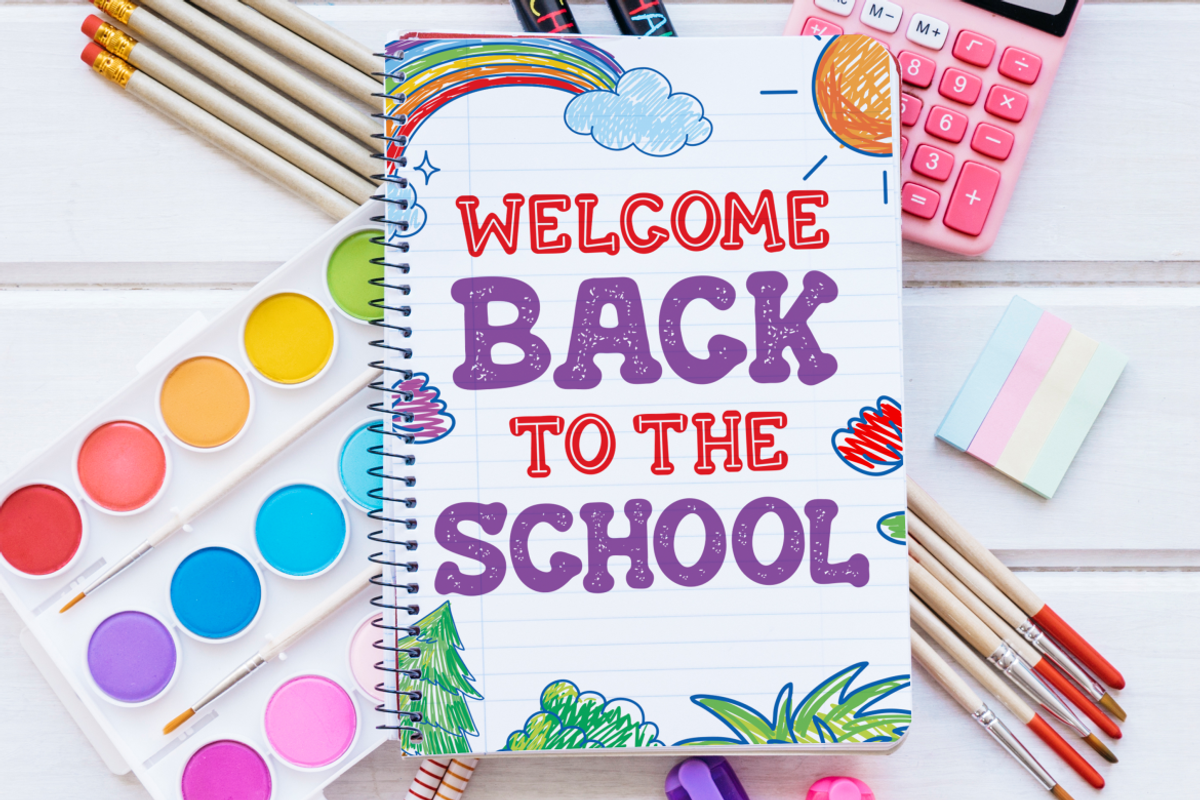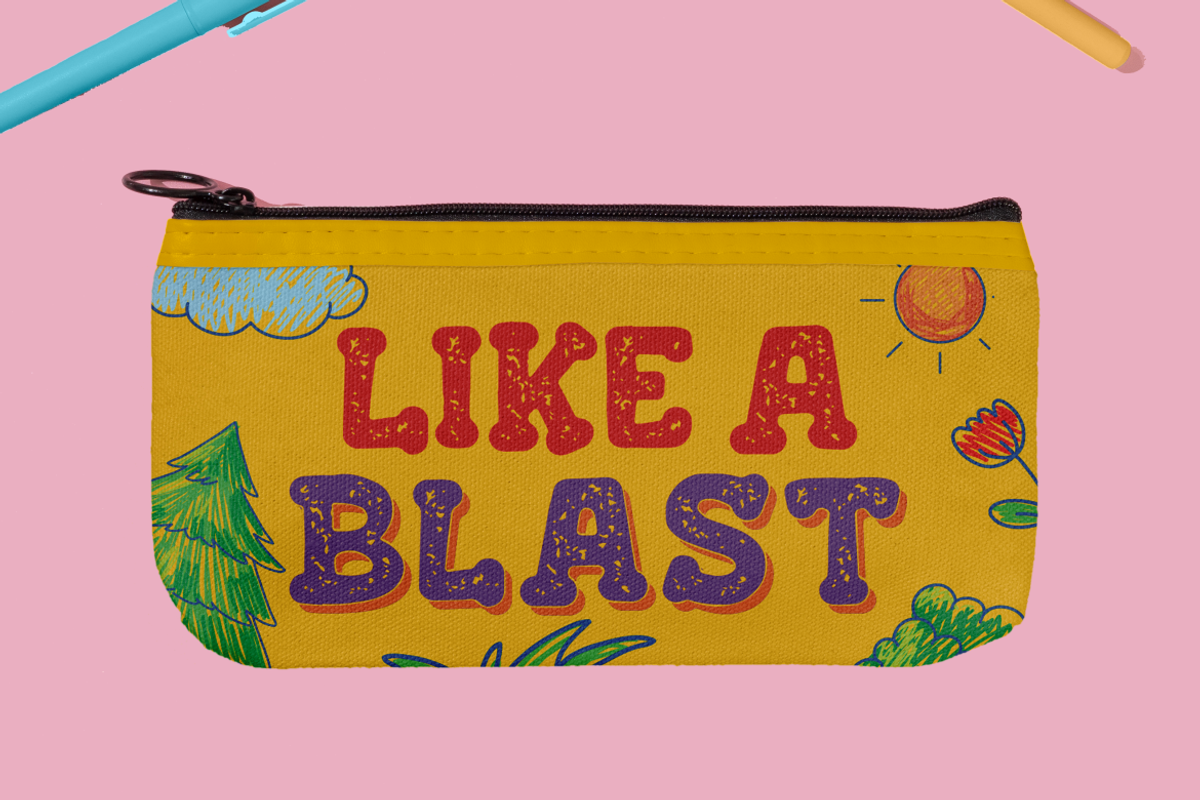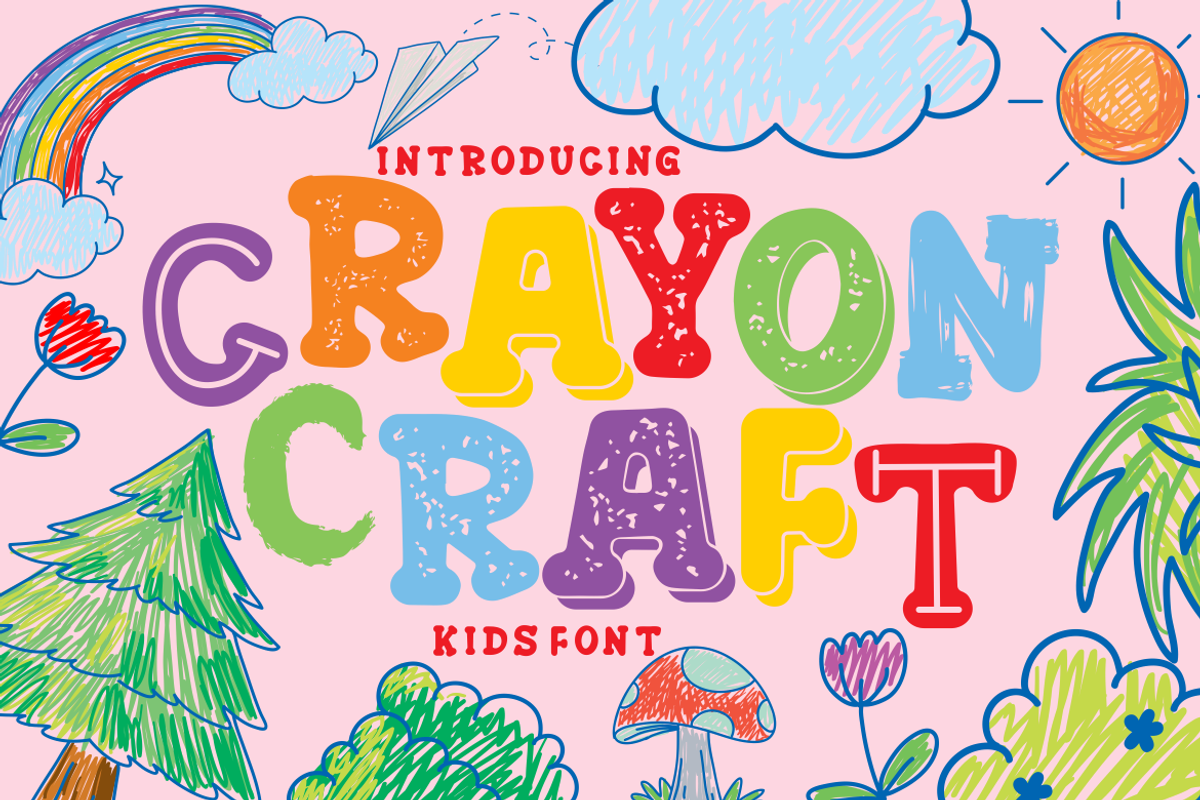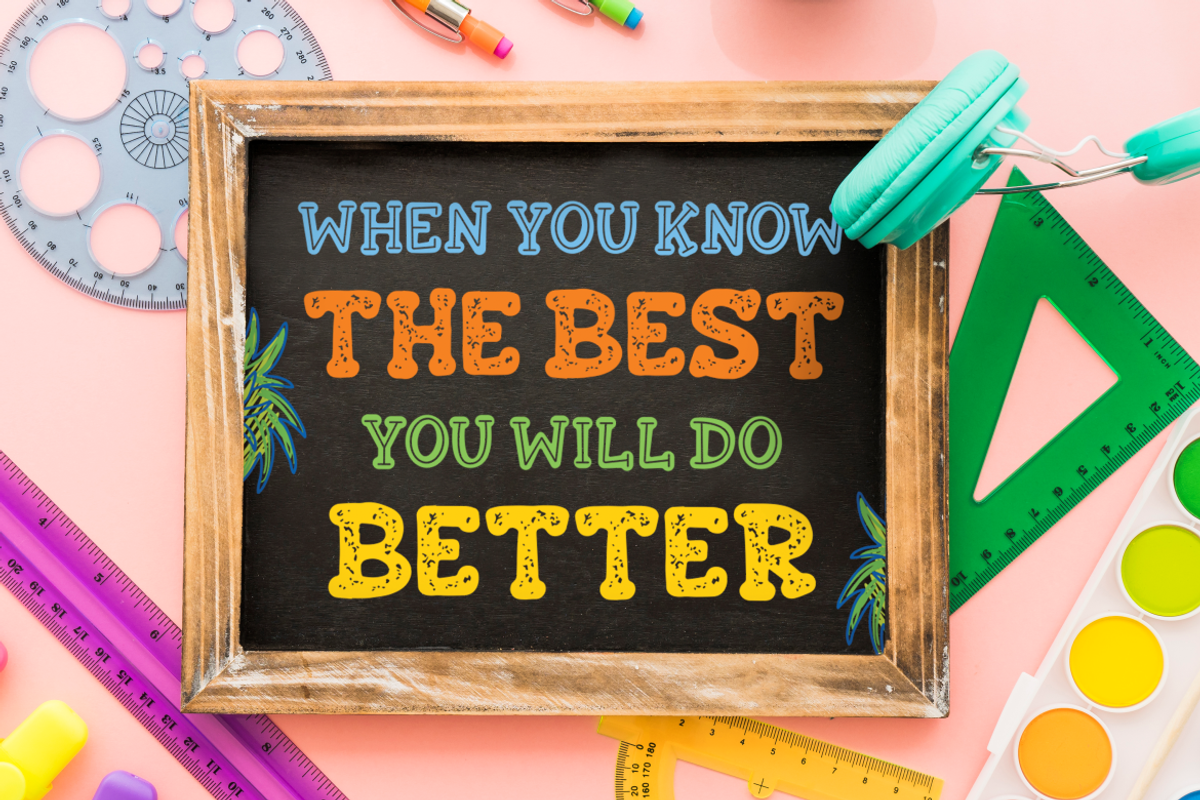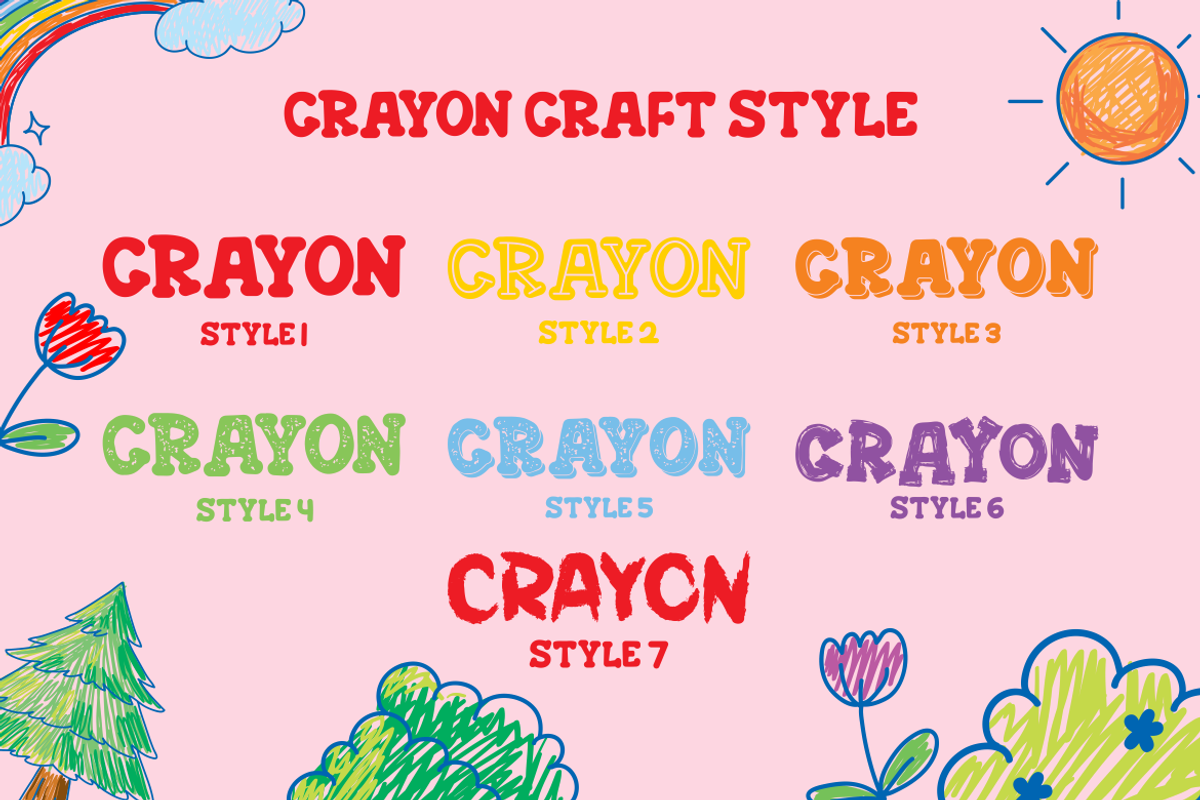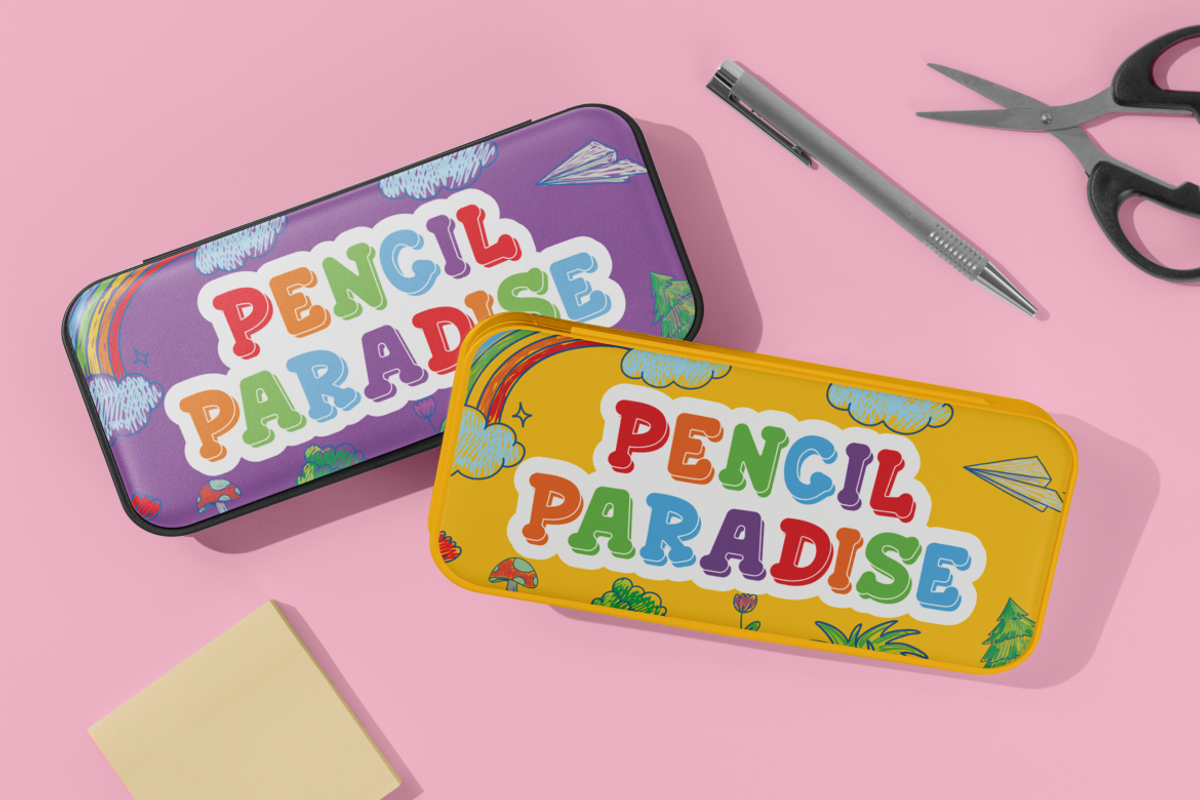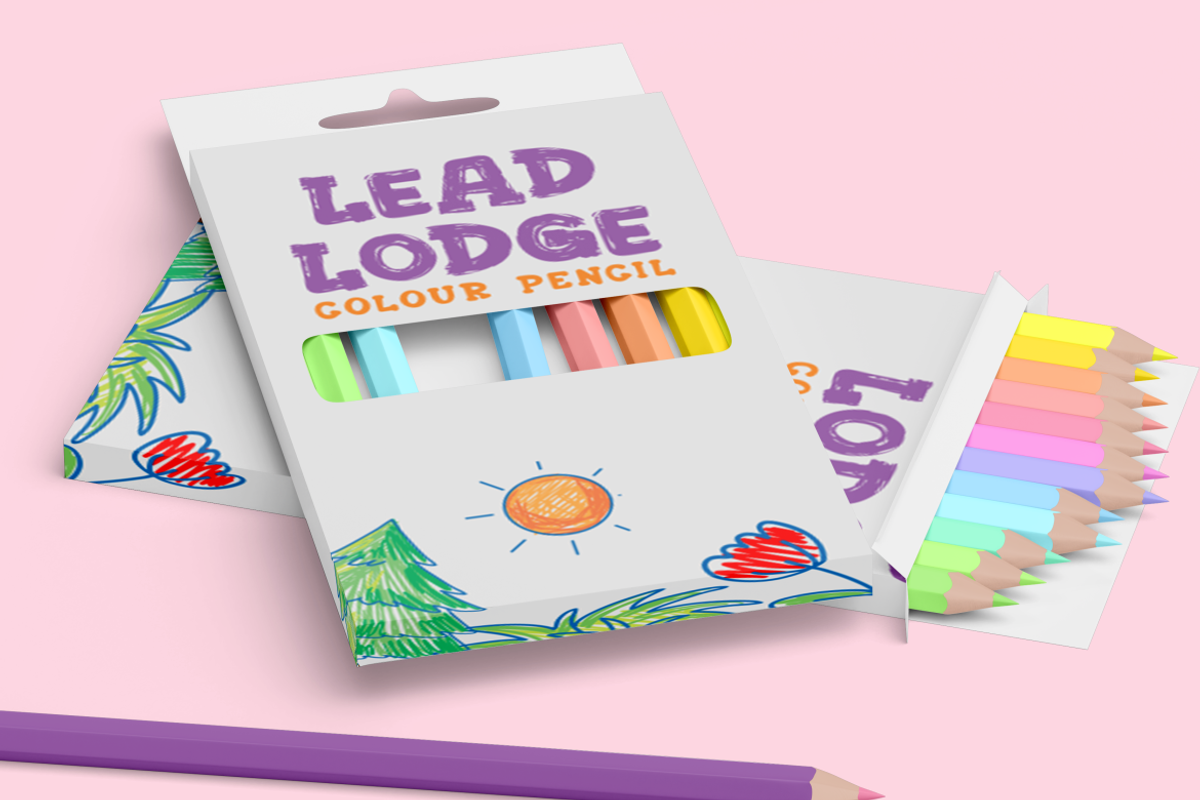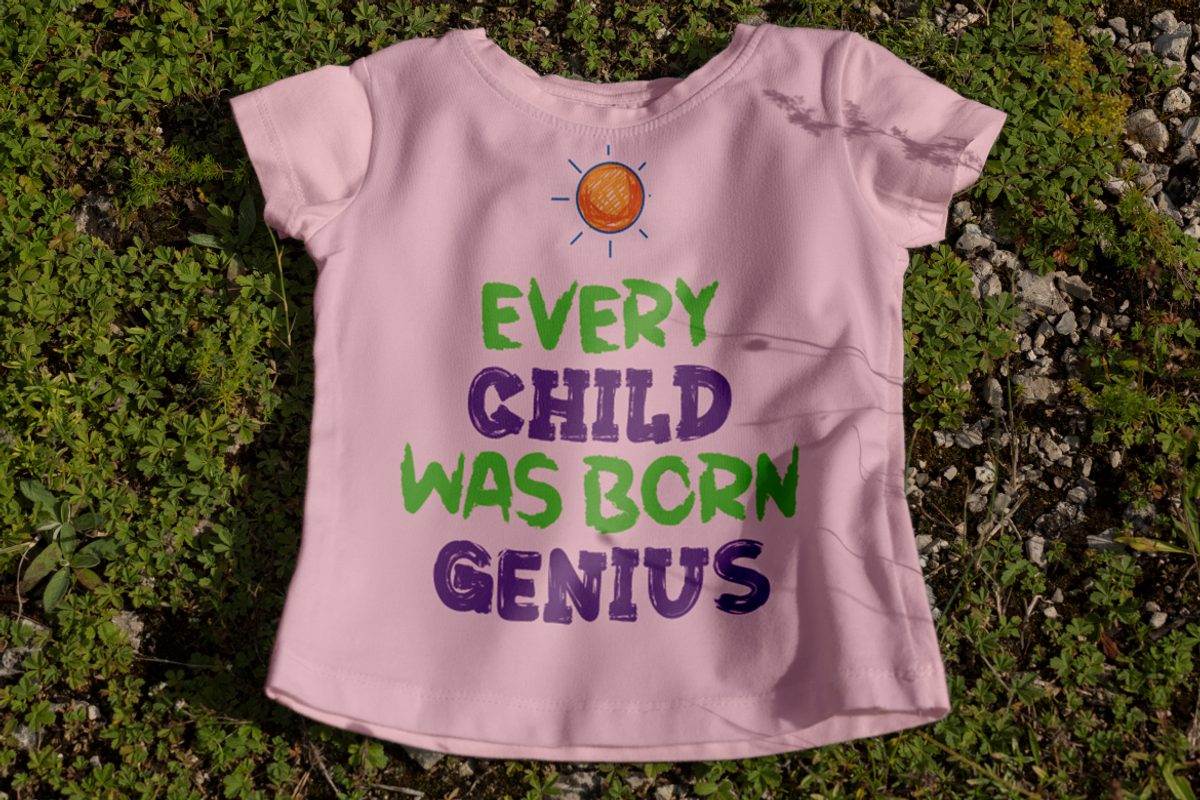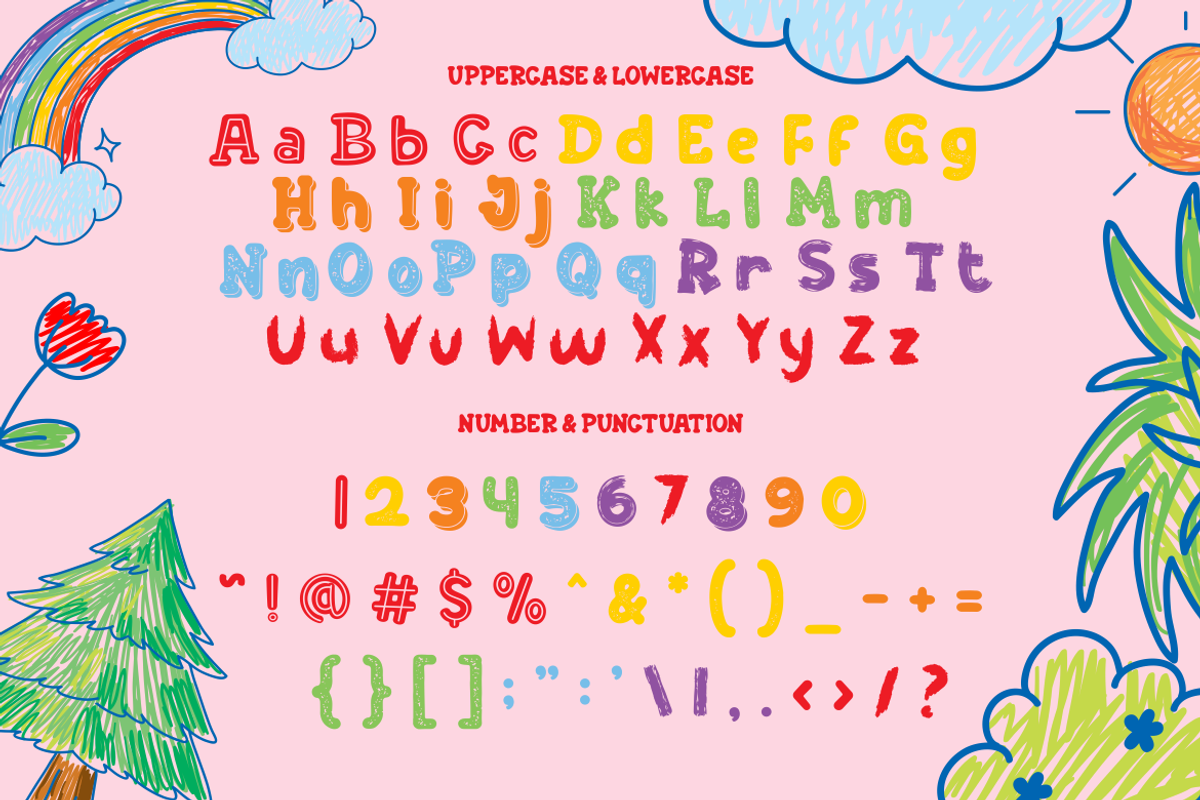
Crayon Craft - Kids Font
Crayon Craft - Kids Font is a whimsical and playful typeface inspired by the innocent creativity of children’s drawings. This font encapsulates the quirky, hand-drawn essence of chalk and crayon textures, making it a perfect companion for projects that require a touch of youthful charm. Each letter is crafted with care, embodying the irregular yet captivating forms found in kids’ artwork. With several variations to choose from, designers can mix and match styles to create unique, eye-catching text.
Crayon Craft is not just a font; it’s an experience that transports you back to days filled with imagination and freedom. Ideal for logos, branding, children’s themes, crafting projects, invitations, packaging, posters titles business cards greeting cards stickers children’s books magazines and any design needing a sprinkle of joy. Every curve and contour is designed to evoke nostalgia while injecting fun into modern design aesthetics.